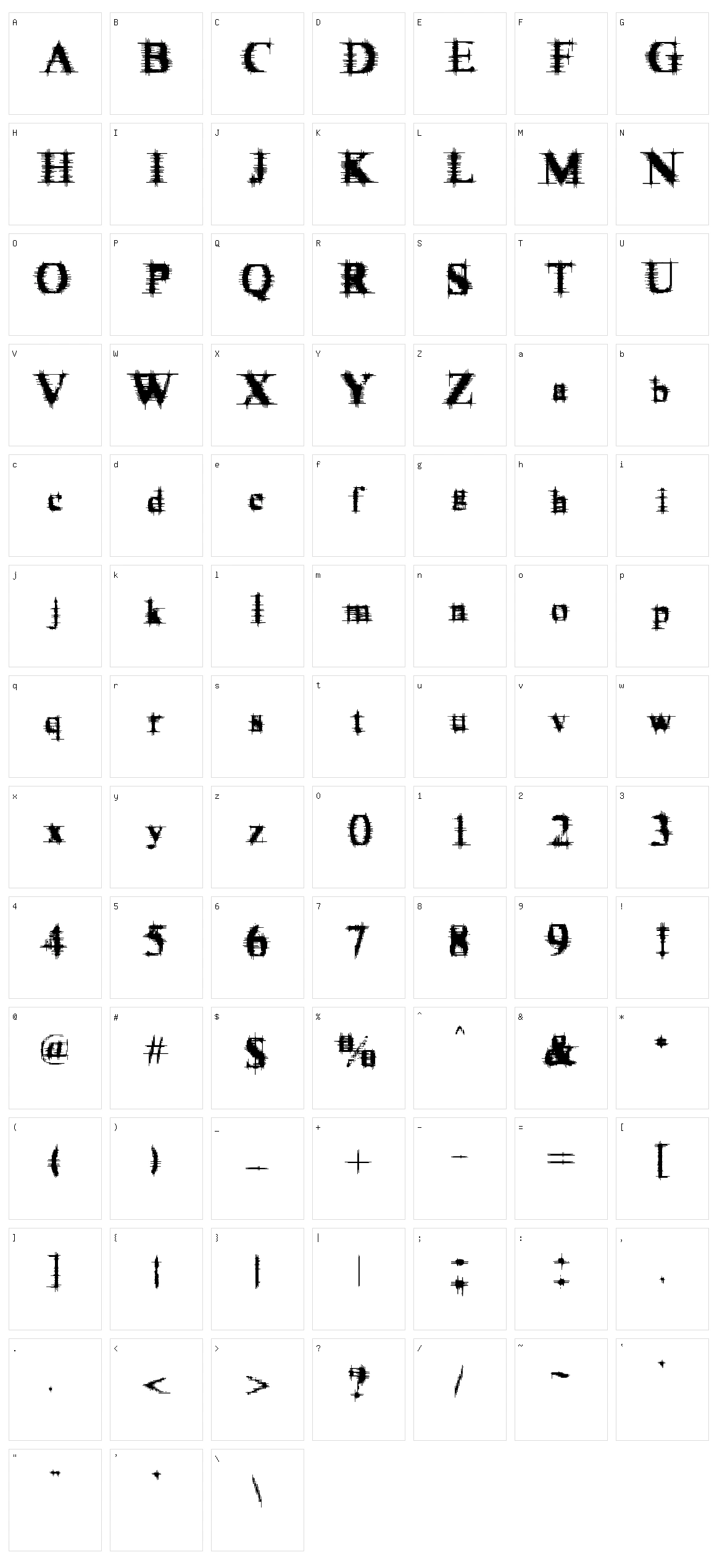
The free font Cymptums is carefully designed by Mad Hatter, showcasing a thoughtful balance of creativity and usability and falls under the Distorted font style. When you download the ZIP file, it contains only 37.02 KB of font files, making it lightweight and quick to download. Please review the license details below to understand permitted usage and distribution rights. If license information is not available, we recommend using this font for personal projects only or contacting the author directly for commercial usage permissions.